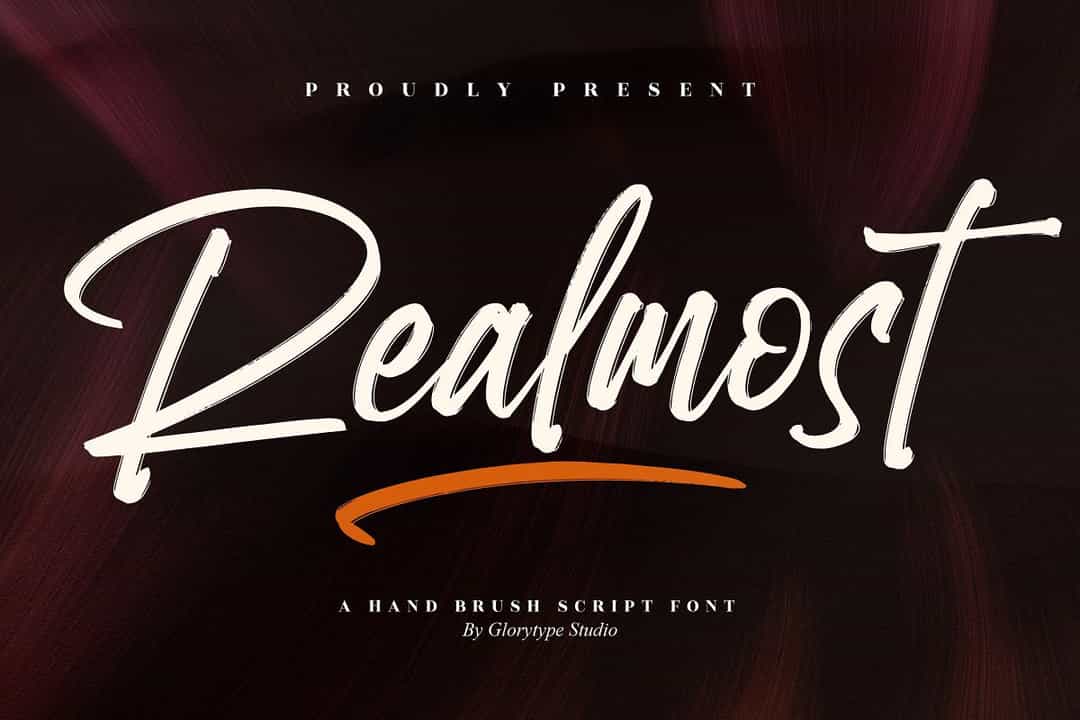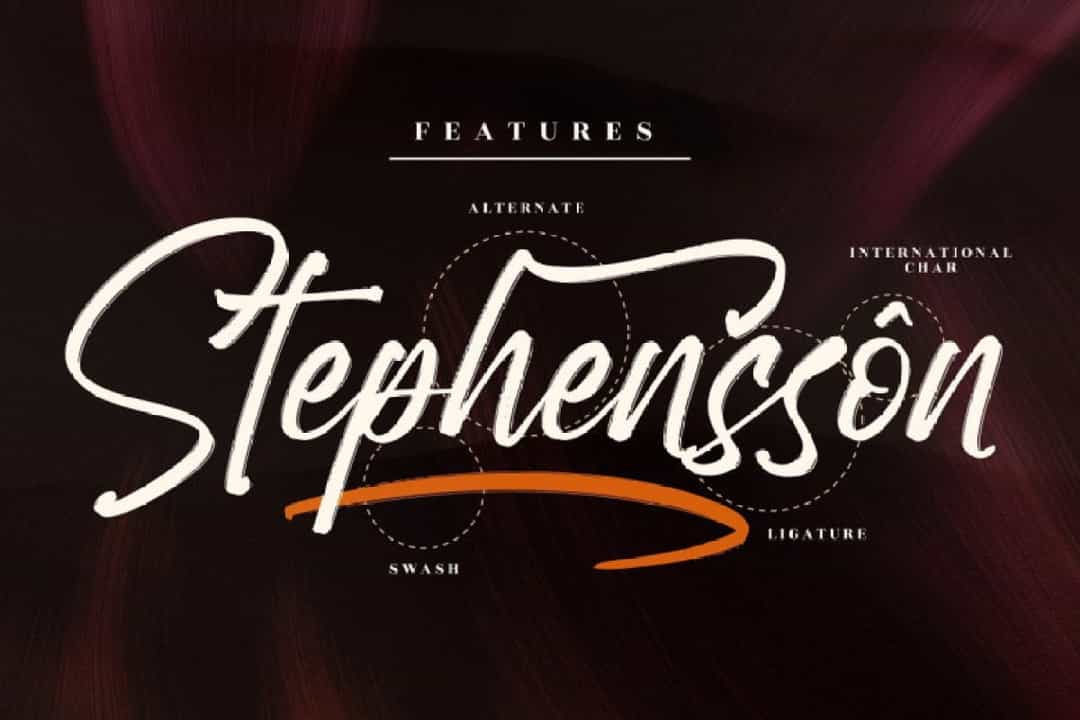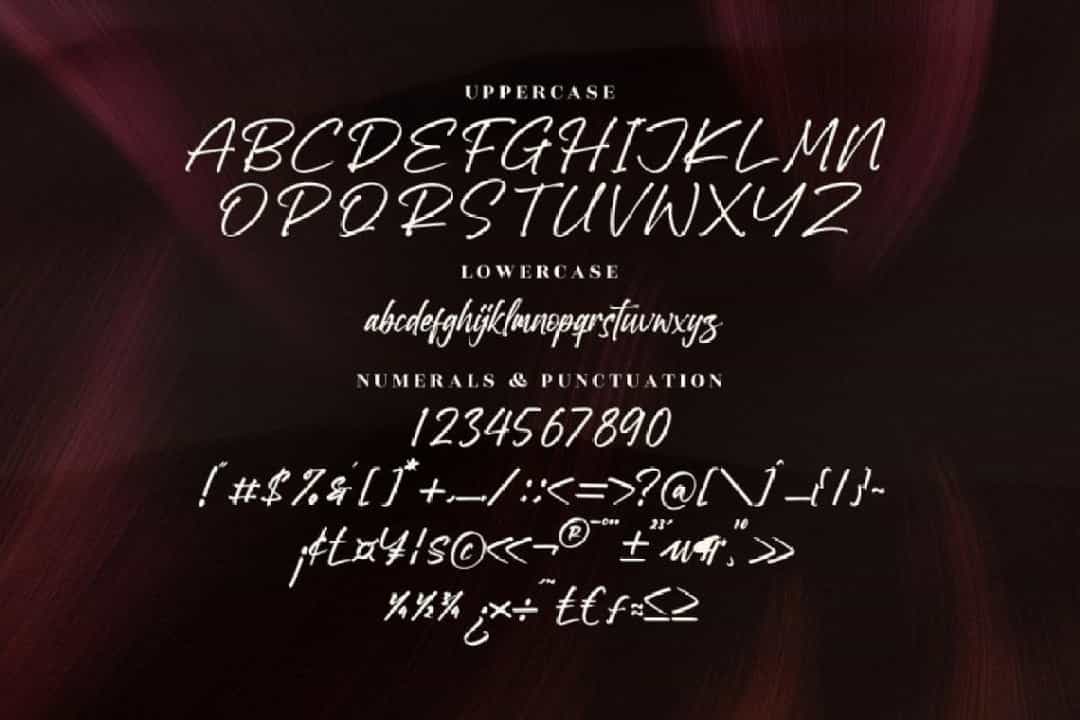
Discover Realmost Font, part of the Brush collection—a versatile and unique font perfect for adding a personal touch to your projects. Download it for free and enjoy crafting designs with style, from invitations to social media posts. This font is available exclusively for personal use, giving you the freedom to create without limits. Unlock your creativity with Realmost Font today!
Realmost hand Brush script Font is ideal for logos, branding and homeware designs as well as packaging of products such as mugs, quotes bags for shopping, posters T-shirts book covers invitation cards name card greeting card labels photography watermark special occasions watermark special events photography watermark special occasions as well as many other projects which require an attractive script style font style.